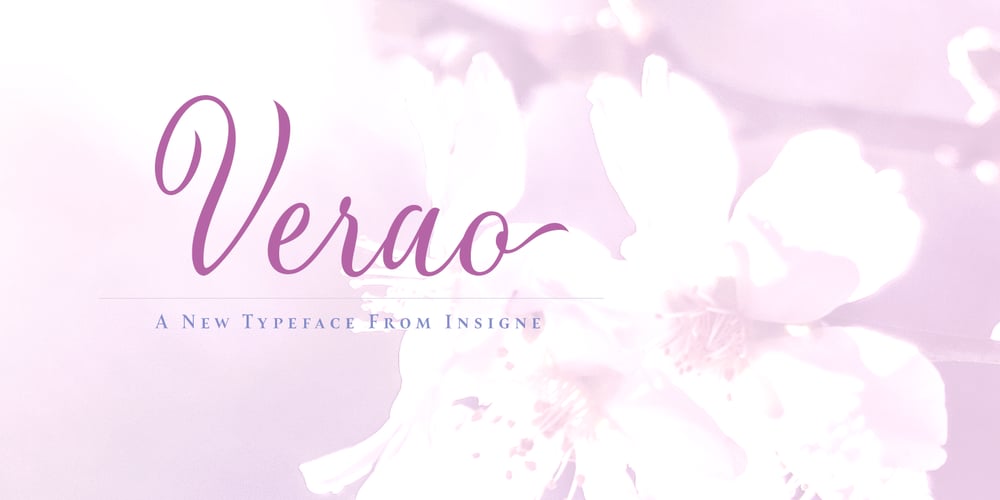
Verao
Verao font
Verao Font Family was designed by Jeremy Dooley and published by insigne. Verao contains 8 styles and family package options. Remember clear summer days as a kid? Remember open fields that you explored? Sun shining? Simple breezes sweeping past your face as you ran far and free? The feeling was uncomplicated and enjoyable. It was natural. That’s Verao, the simple spirit of summer. Alive and vibrant, Verao takes a turn away from the cold structure of today’s rigid creations and embraces the movement back to the value of things handmade. This artisan creation represents the rare, soul-invested fusion of the craftsman’s tools, materials, and hand movements, which shapes the solid–but beautifully defined–parts, pieces that, when put together, breathe a measure of life into everyday paragraphs and other bodies of text. Verao’s hand-written brush script, with its characters’ imperfect elegance and handmade quality, keeps your work looking organic. Write a word in more than a hundred different ways thanks to the large number of extra letters it offers. Two sets of lowercase alternative letters without connectors are included as is a set of swashed endings. Verao contains stylistic substitutions and ligatures, too, that you can combine however you like. Whichever way you design, the elements continue to appear balanced and separate and will undoubtedly add more personality to your design. So stop switching out cogs in your rigid set of fonts. Take time again to play with a natural face that’s both easy and energetic. Verao’s great temperament makes it a joy to design with. Let this spirit of summer take you away from the mundane. There’s a good chance Verao will lead you where you need to go. Production assistance from Lucas Azevedo.